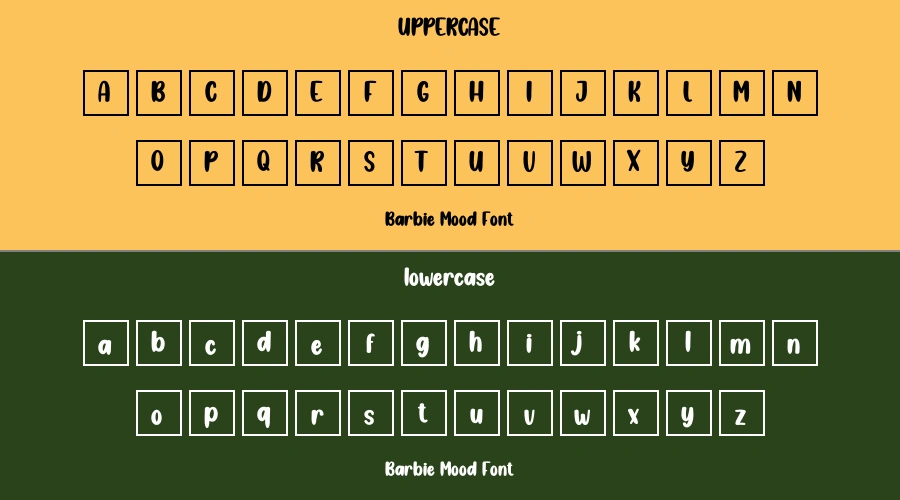
About Barbie Mood Font
Designed with precision, Barbie Mood Font merges flowing forms with performance stability in every character. This versatility makes it particularly effective for logo design, where craftsmanship and craft excellence directly impact communication quality. Each letterform demonstrates meticulous craftsmanship.
Technical excellence shines through elements like graceful curves and logotype support, enhancing typographic versatility. In formal invitations settings, Barbie Mood Font proves its worth through superior detail retention. The thoughtful execution of aperture size and technical innovation ensures professional results.
Barbie Mood Font |